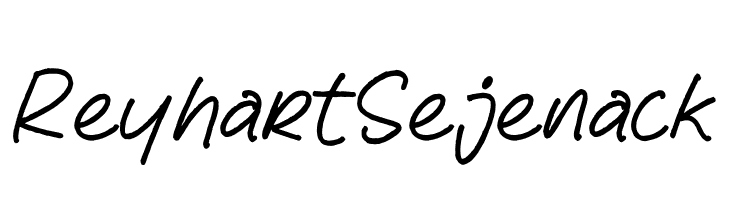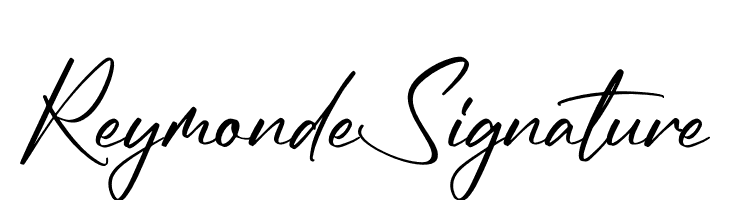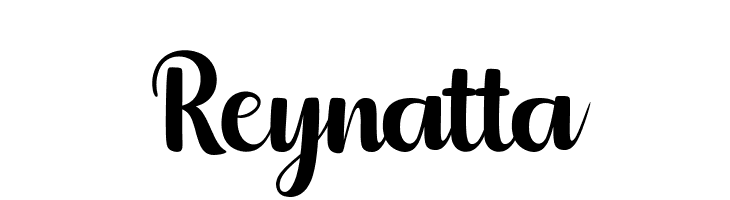
Elegant handwritten script font.
A graceful and fluid script font with elegant, flowing letterforms.
A bold, flowing script font with elegant, interconnected characters.
An elegant, geometric font with Art Deco influences, featuring elongated, narrow letterforms.
A modern, contour-style font with bold outlines and geometric shapes.
A classic, elegant script font with sweeping curves and ornate details.
A classic, elegant calligraphic font with graceful curves and fluid motion.
An artistic and elegant font with elongated, narrow letterforms and a hand-drawn quality.